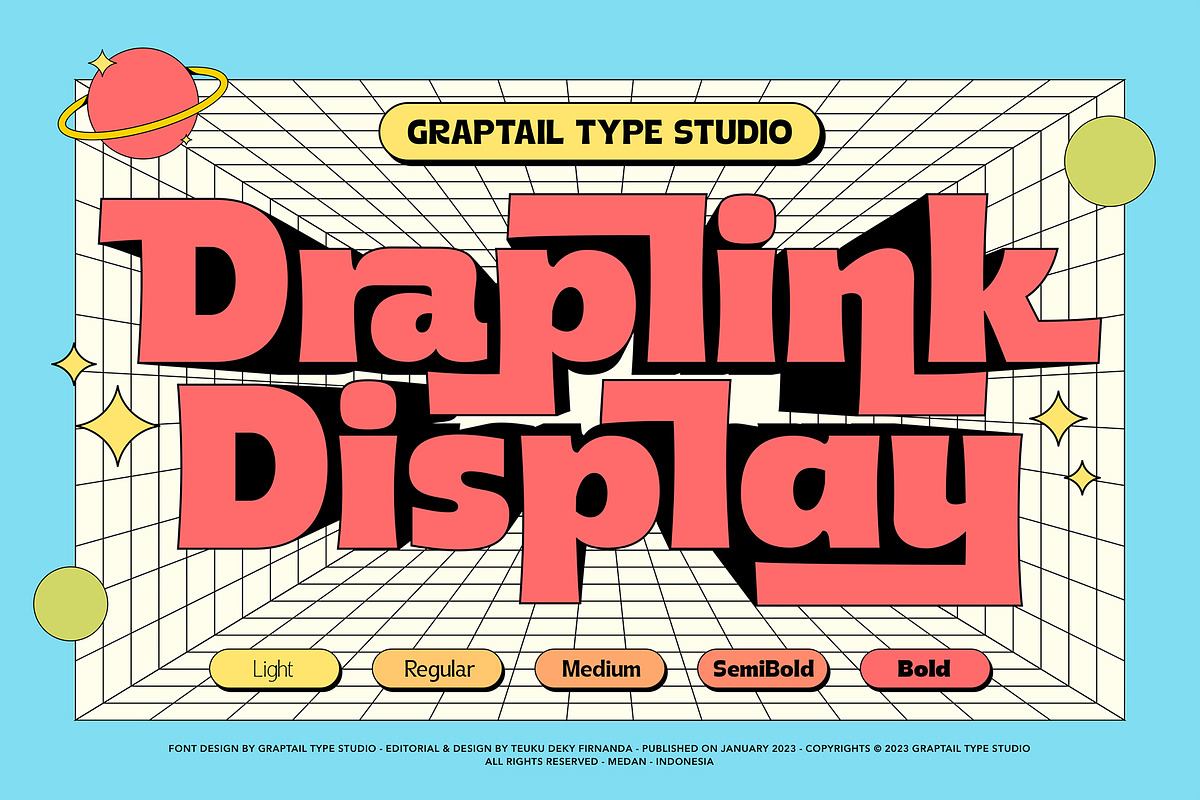
Draplink - Display Fonts Free Download is a bold and modern display typeface designed to make a statement. Featuring strong, geometric letterforms and high contrast strokes, this font is perfect for creating attention-grabbing headlines, logos, posters, and branding materials. Its distinctive design ensures that your typography stands out and captures the audience’s attention with ease.
Using the Draplink - Display Fonts Free Download adds a dynamic, modern touch to your designs. Whether you're working on a futuristic logo, promotional content, or event posters, this font brings energy and a professional feel to your typography.